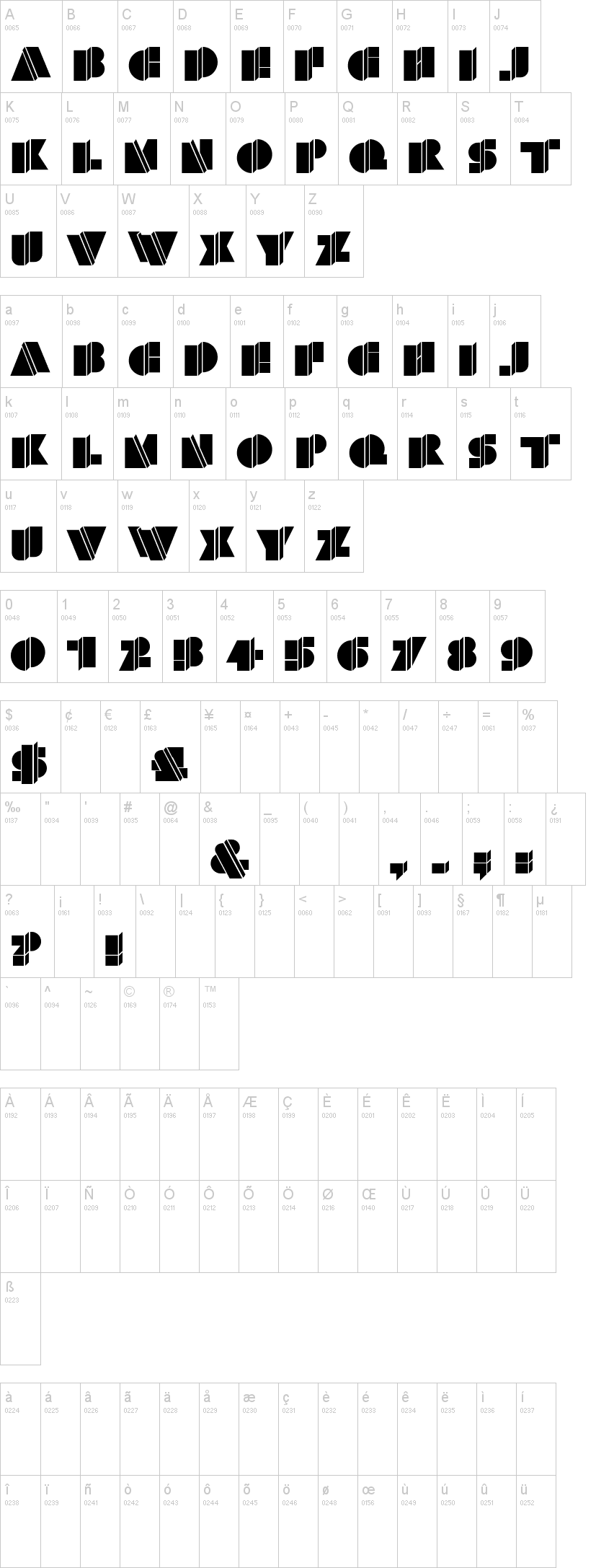
Note of the authorMinor fix on the J and j characters
HFF Warped Zone is based on Mindanoa, originally designed by Rosemary Tissi and was first published by Engler Text-Bild-Integration AG in 1975.